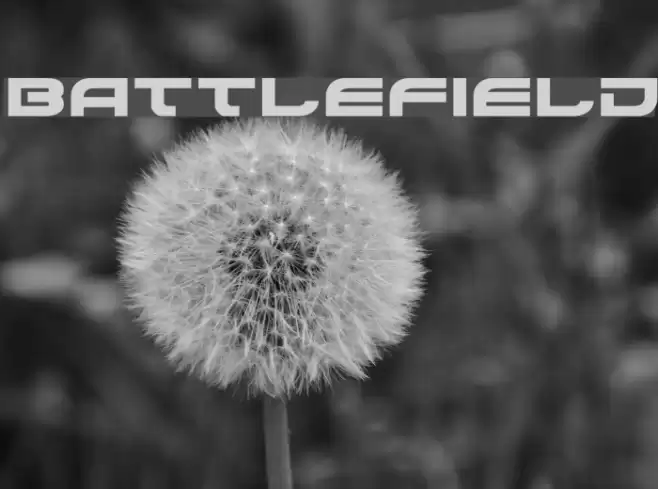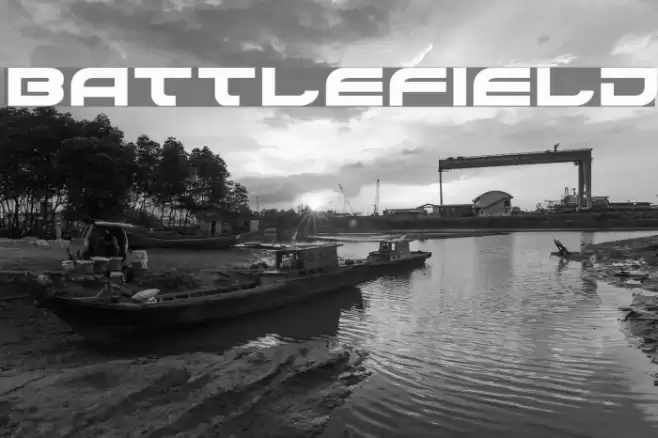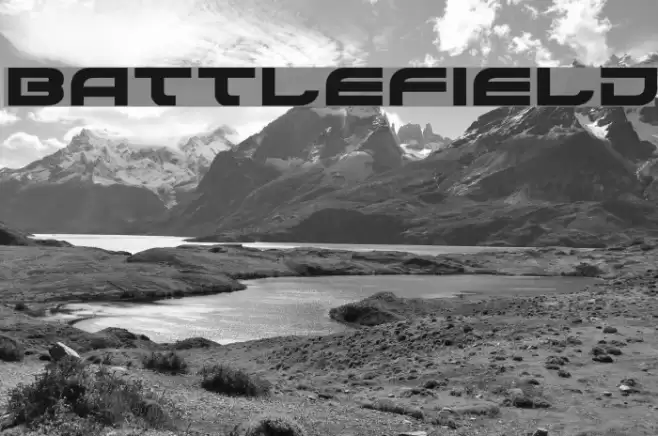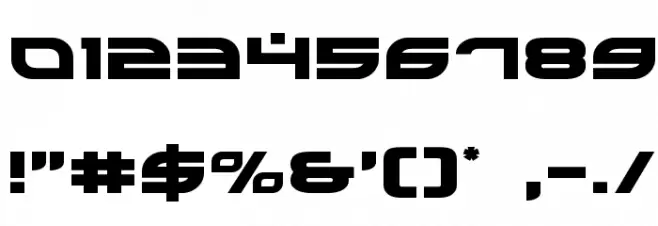
Battlefield Font
Battlefield Description
This font features a bold and futuristic design with geometric shapes and sharp angles. The characters are uniformly wide, giving it a strong and impactful presence. The uppercase letters have a distinct, modern look with unique cuts and curves, while the lowercase letters maintain a consistent style. The numbers and special characters are designed to match the overall aesthetic, making it suitable for a variety of applications. The font's design is clean and precise, with a focus on readability and style.
A bold, futuristic font with geometric shapes and sharp angles from Futuristic fonts.
- Proposed Projects: Ideal for sci-fi themed projects, video game titles, tech branding, and modern posters.